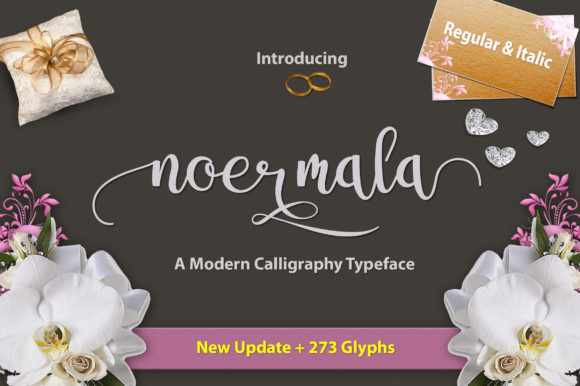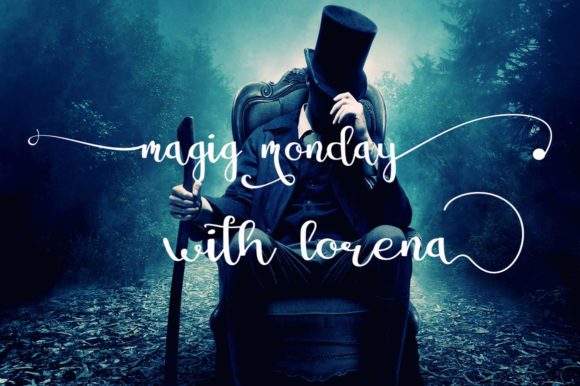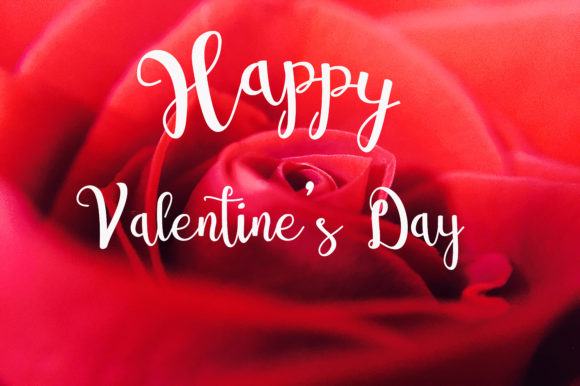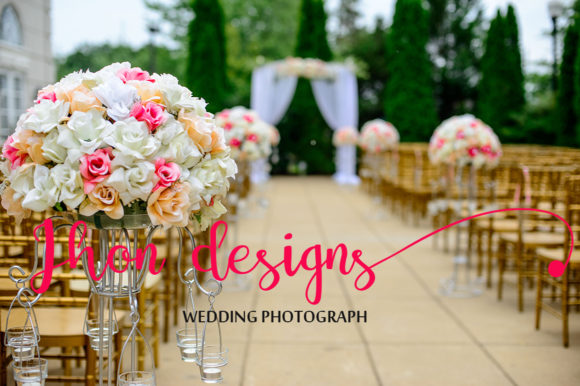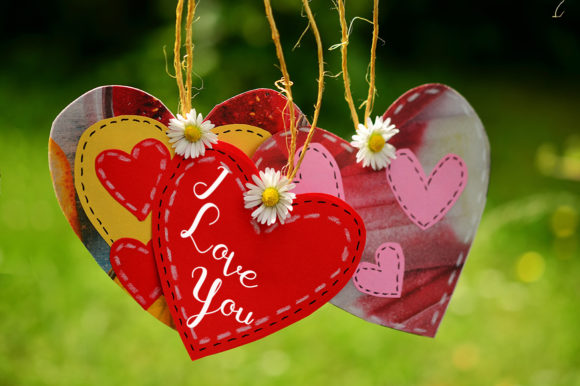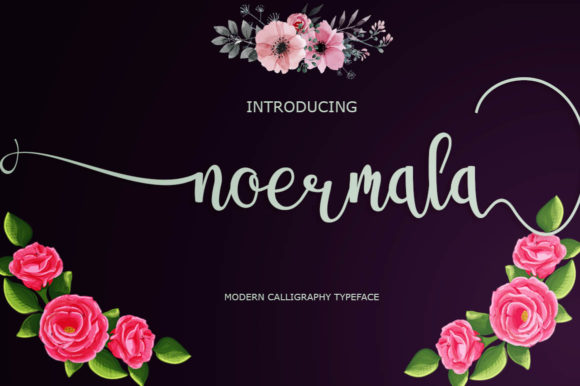
Noermala Font
About Noermala Font
Noermala is a stunning handwritten script.
This font, exclusively available on Creative Fabrica, features gorgeous swashes and decorations. This allows you to make many variations of the same text which makes this font suitable for many different types of projects.
Noermala comes in a regular & slant version.